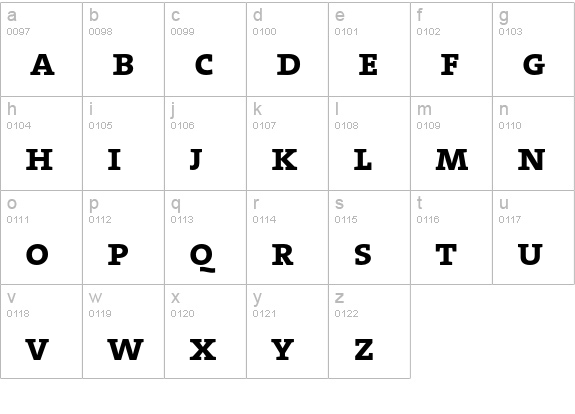
TheSerif Bold Caps is a strong, high-contrast variant in the TheSerif typeface family \xE2\x80\x94 well suited to headlines, attention-grabbing titles, and strong calls-to-action.
TheSerif Bold Caps font is a stunning display typeface that exudes sophistication and elegance. Its bold and commanding presence makes it perfect for headlines, titles, and branding projects. The clean and sharp lines of this font give it a modern and timeless appeal, making it suitable for both contemporary and classic designs. With its distinctive uppercase letters, TheSerif Bold Caps font captures attention and creates a strong visual impact. Its well-defined serifs and balanced letterforms contribute to its overall legibility, ensuring that your message is conveyed clearly and effectively. One of the most remarkable features of TheSerif Bold Caps font is that it is free to download at FontsMarket.com. This means that you can access this exceptional font without any cost, allowing you to enhance your projects without breaking the bank. Whether you're a professional designer or a hobbyist, this font provides an excellent option to elevate your work. TheSerif Bold Caps font's versatility is another aspect to admire. It seamlessly adapts to various design contexts, including editorial layouts, website headings, packaging, and more. Its bold and impactful nature adds a touch of authority and sophistication to any design, helping you create a lasting impression on your audience. In conclusion, TheSerif Bold Caps font is a free typeface that combines elegance, legibility, and versatility. Its bold and commanding presence, along with its clean and sharp lines, makes it a go-to choice for designers looking to add a touch of sophistication to their projects. Download this exceptional font at FontsMarket.com and elevate your designs to new heights.